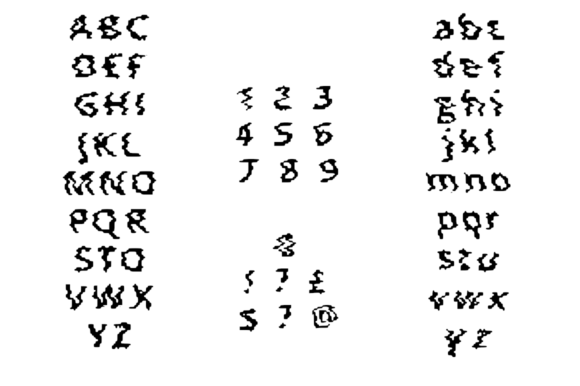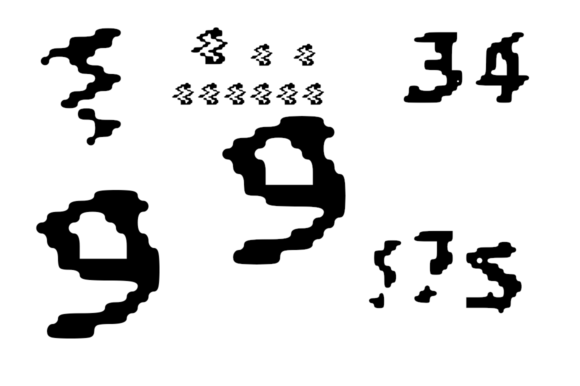
Introduction to Glitch Bitmap Font
Have you ever been in the middle of a creative project, and suddenly, a spark of inspiration hits you? Maybe it’s the perfect combination of colors, or a unique design element that takes your project to the next level. For designers, moments like these are what make the job so rewarding. One such element that can elevate your project is the Glitch Bitmap Font – a high-quality design resource that’s perfect for adding a touch of glitch art to your creative project.
This free download is a game-changer for designers who want to add a bit of edginess to their work. With its transparent background and distorted feel, the Glitch Bitmap Font is an ideal choice for anyone who wants to create a truly unique visual experience. Whether you’re working on a web project or a graphic design piece, this font is sure to make your design stand out.
Key Features of Glitch Bitmap Font
- High-quality, pixel-perfect design resource ideal for creative projects requiring a distressed aesthetic.
- Comes with a transparent background, allowing for seamless integration into various design environments.
- Unique glitch effects and distortions create a visually striking and eye-catching design element.
- Perfect for adding a touch of retro charm or futuristic flair to your design project, depending on the desired aesthetic.
Honest Review: Glitch Bitmap Font
As a designer, I’m always on the lookout for high quality design resources to elevate my creative project. Recently, I came across the Glitch Bitmap Font, and I’m excited to share my thoughts on it.
What works well is the level of detail in the font. The glitch effects are seamless and give it a unique, retro-futuristic vibe. The transparent background option is also a plus, allowing for easy integration into any design.
- Unique glitch effects for a retro-futuristic look
Common Use Cases for Glitch Bitmap Font
The Glitch Bitmap Font is perfect for a variety of creative projects, including:
- Video game design
- Graphic novels
- Music festival branding
- Experimental art